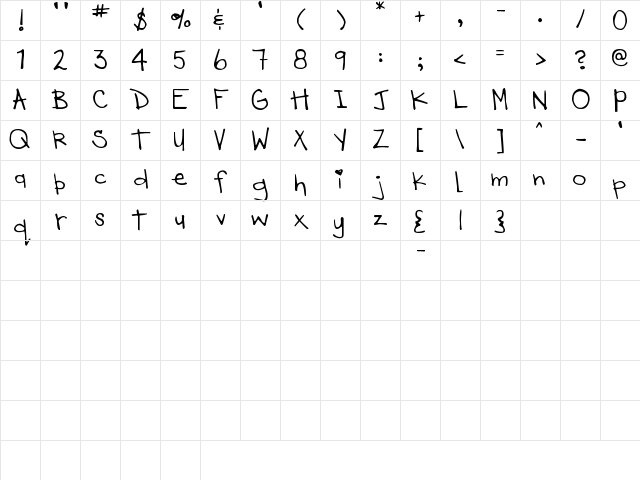
Complete DJB Heart of Dixi Regular glyph index. Displaying only characters natively supported by DJB Heart of Dixi Regular font.
DJB Heart of Dixi is a composed and adaptable typeface that performs quietly and consistently across a wide range of design contexts.